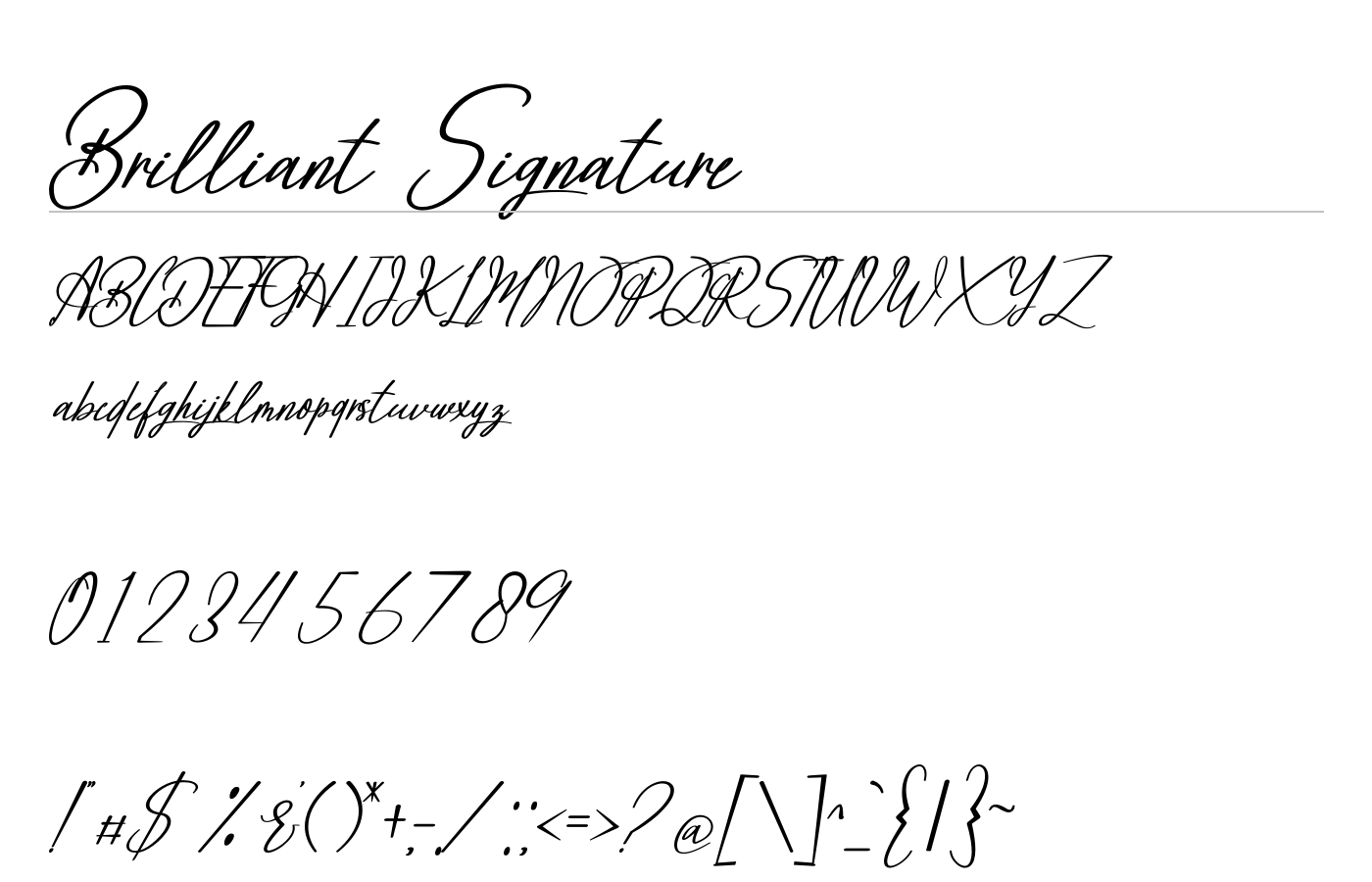
Brilliant Signature is an elegant script font that mimics natural, fluid handwriting with a light, airy stroke. Its slender, slightly slanted letterforms feature smooth curves and delicate connections, creating a refined and sophisticated feel perfect for personal branding, fashion, and luxury design projects. This font works beautifully in logos, invitations, and other creative headlines where a stylish, graceful touch is desired.
Brilliant Signature Font
About Brilliant Signature Font